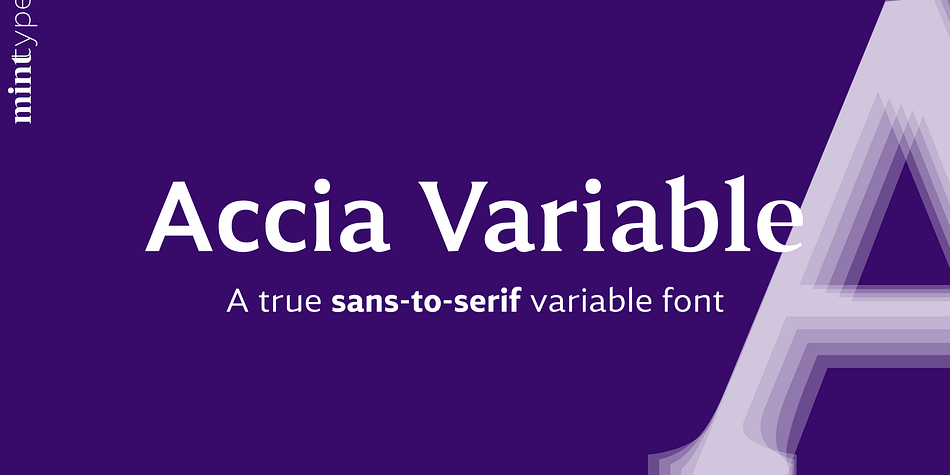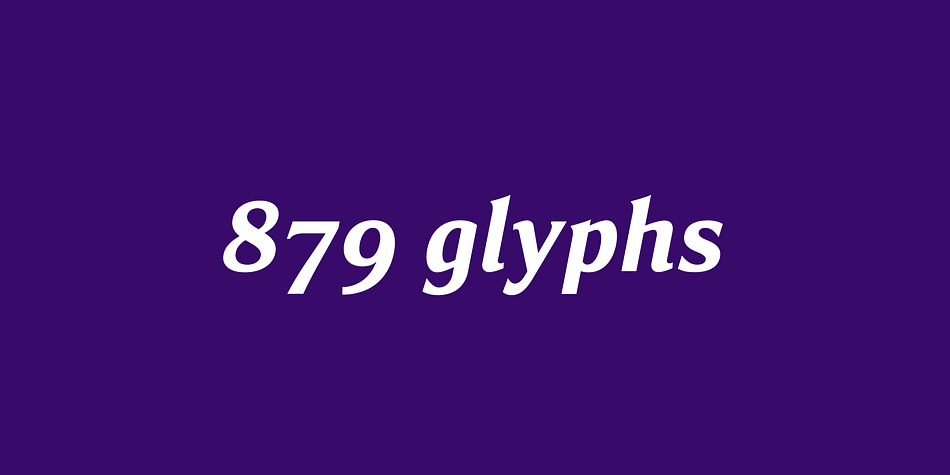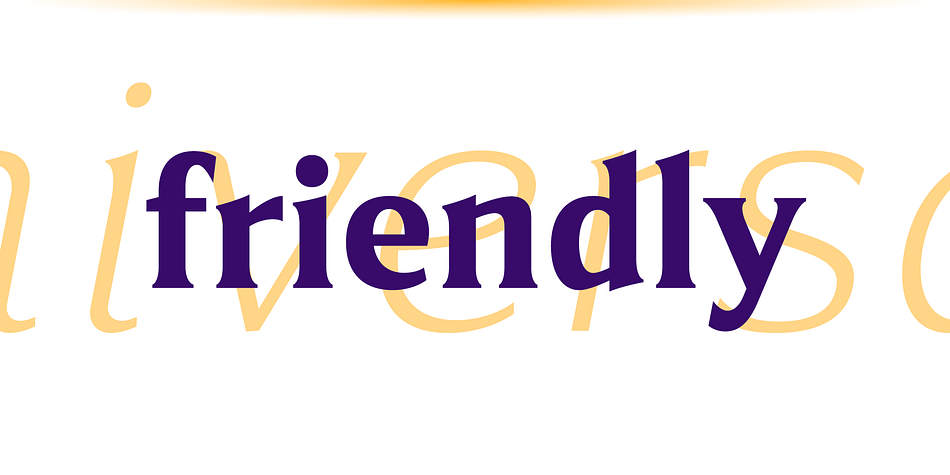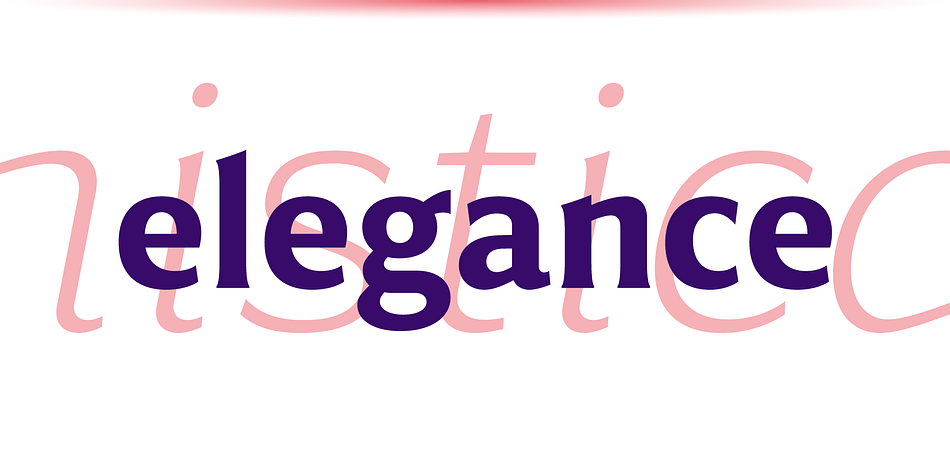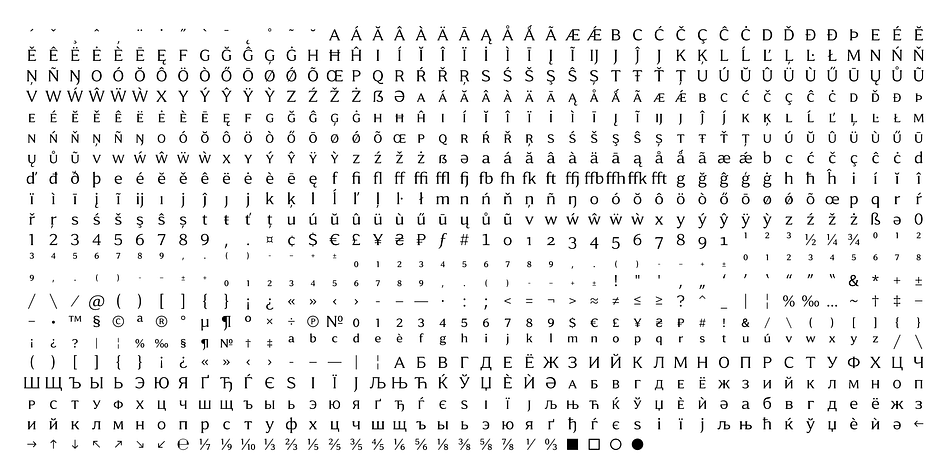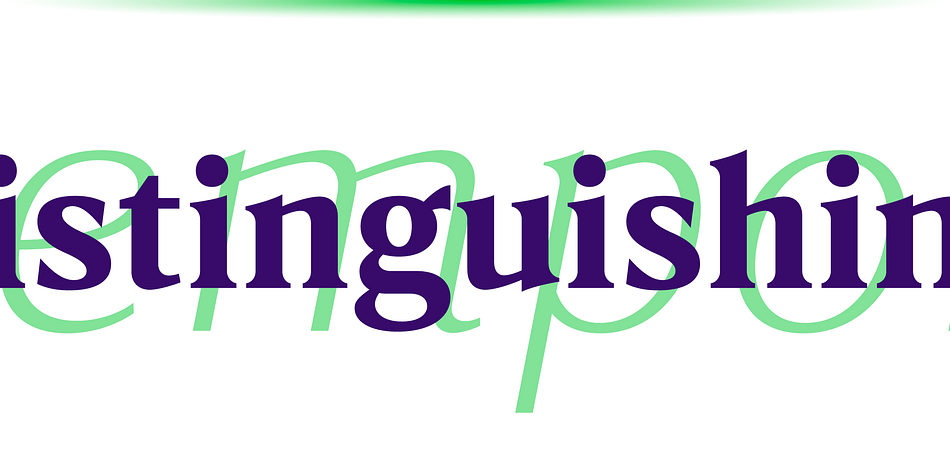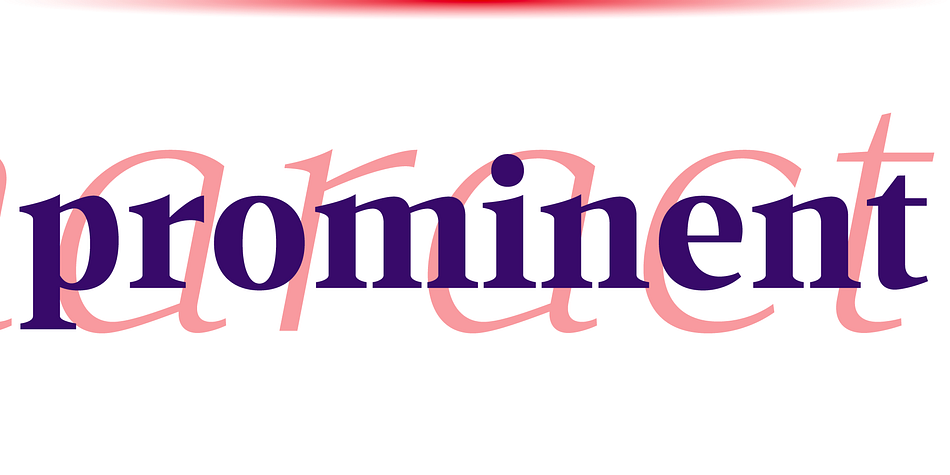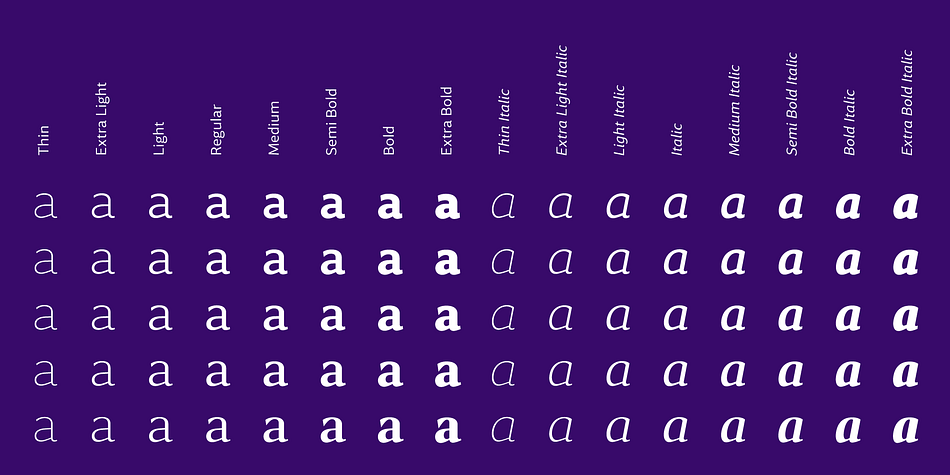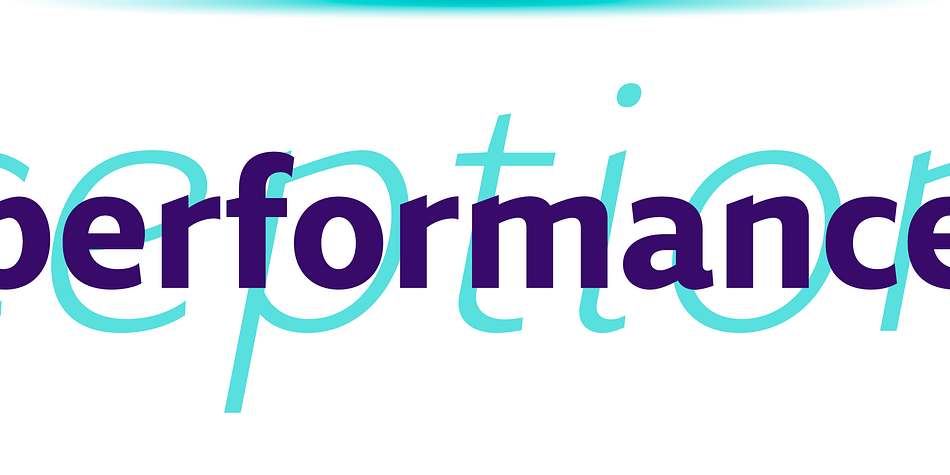
Accia Type System Collection
Designed by Andriy Konstantynov, Accia Type System is a sans serif and serif font collection published by Mint Type.
Accia Type System encompasses five typefaces ranging from sans-serif to expressive serif, giving you the possibility to create sophisticated cohesive designs. Accia Type system consists of Accia Sans, Accia Flare, Accia Piano, Accia Moderato, and Accia Forte.
Each font family contains 8 weights from Thin to Extra Bold, with matching true italics. It supports extensive language support including Cyrillic, as well as numerous OpenType features such as small caps, ligatures, several sets of figures, case-sensitive punctuation, ordinals.